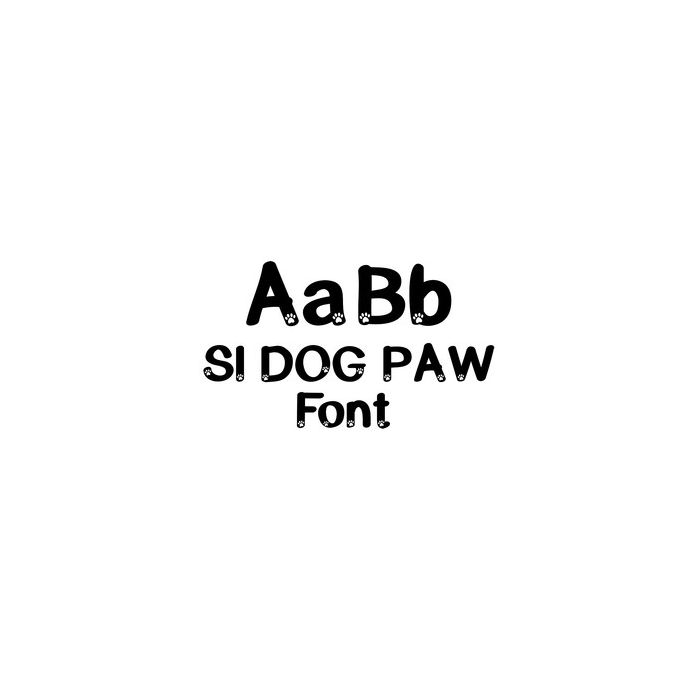
si dog paw font
A simple, Sans Serif font - when you want to add a canine look to your project! Connect with us at: https://www.facebook.com/sandiscribbles